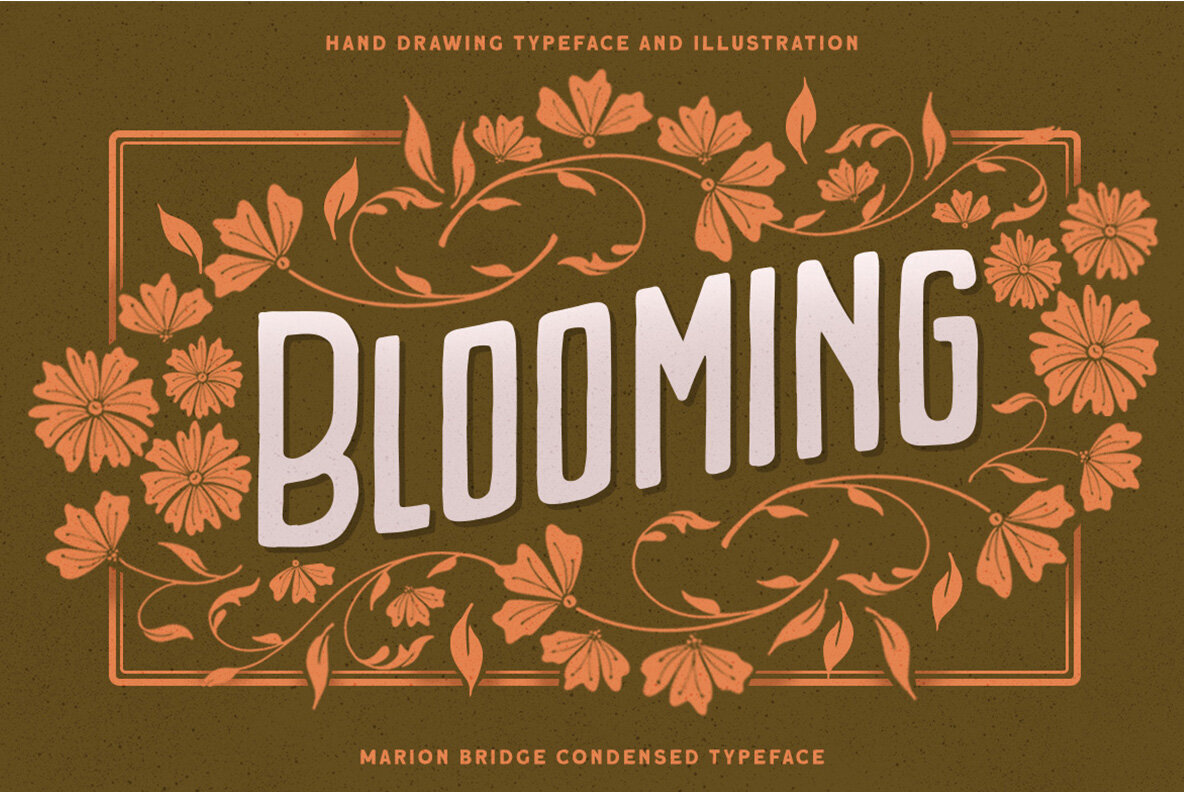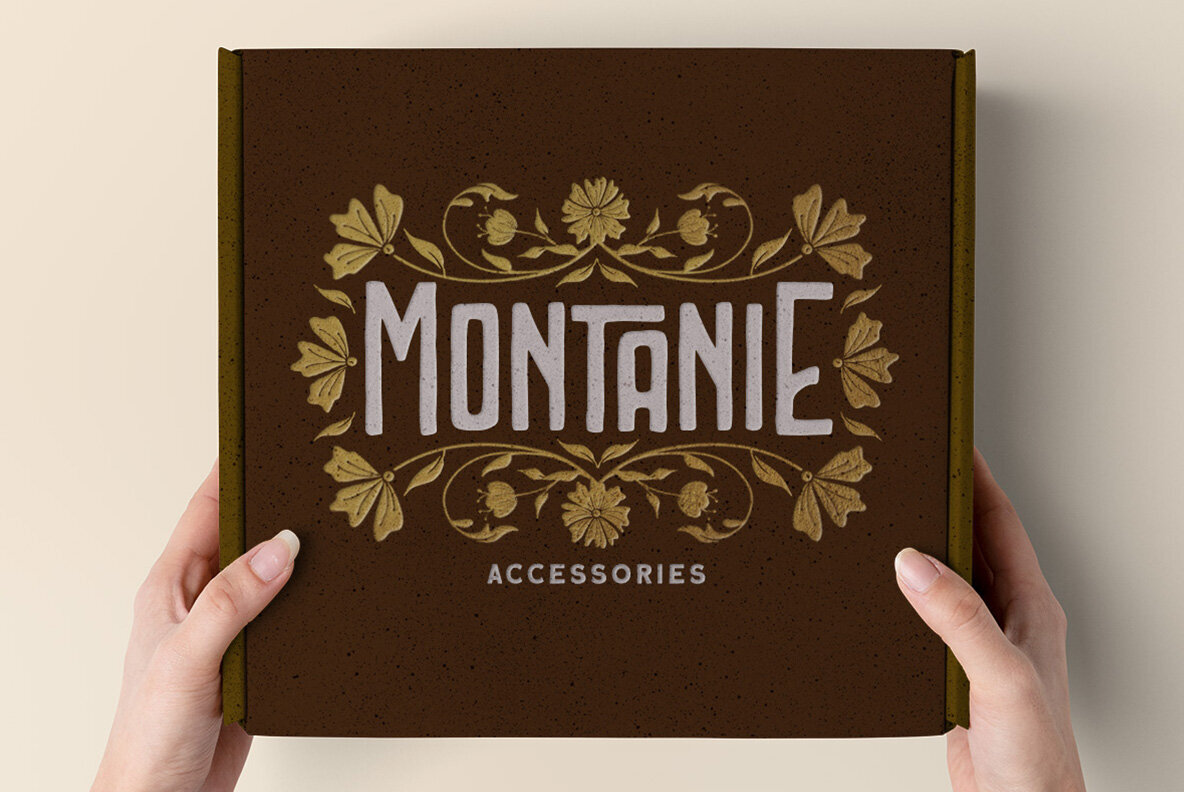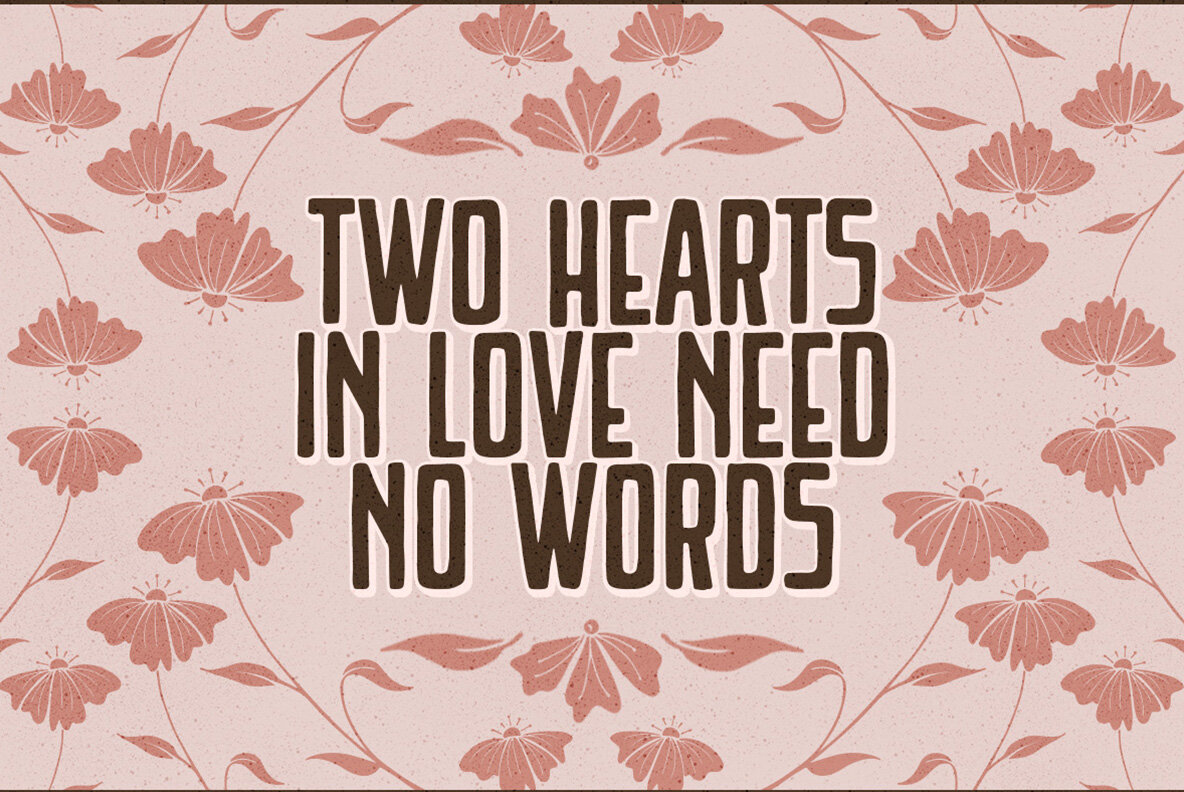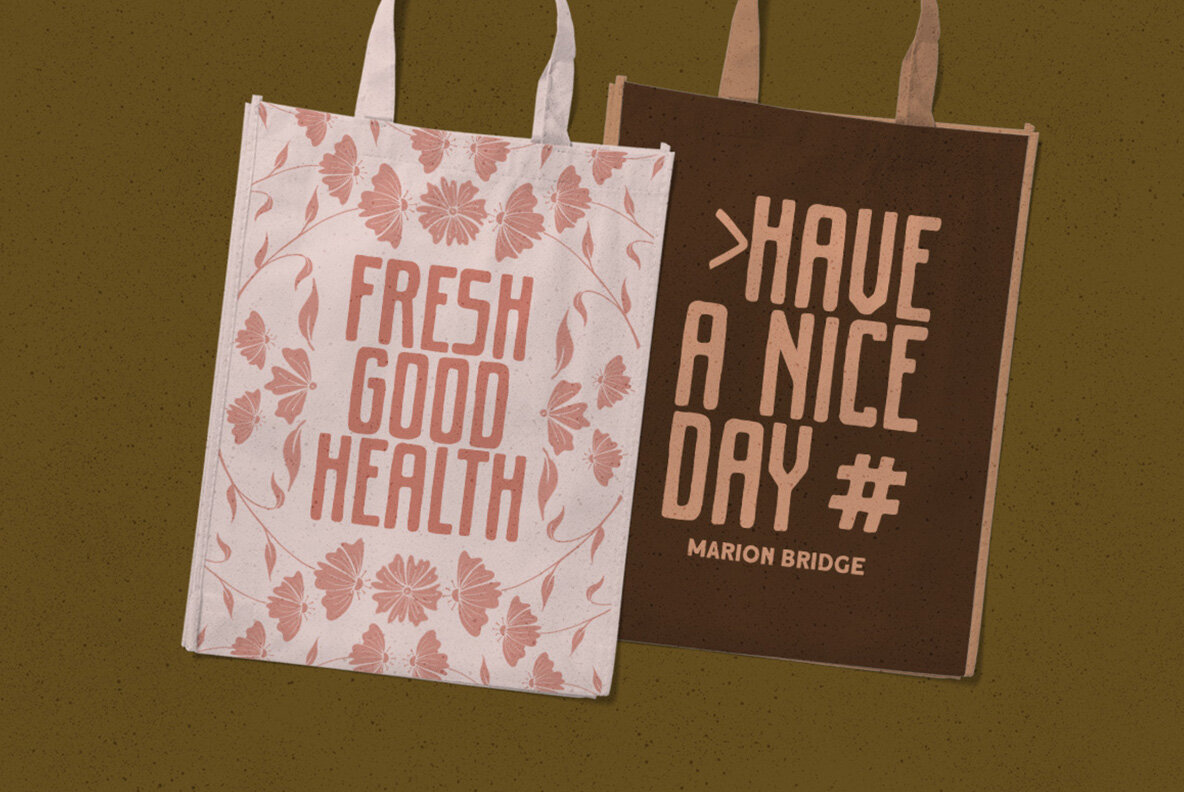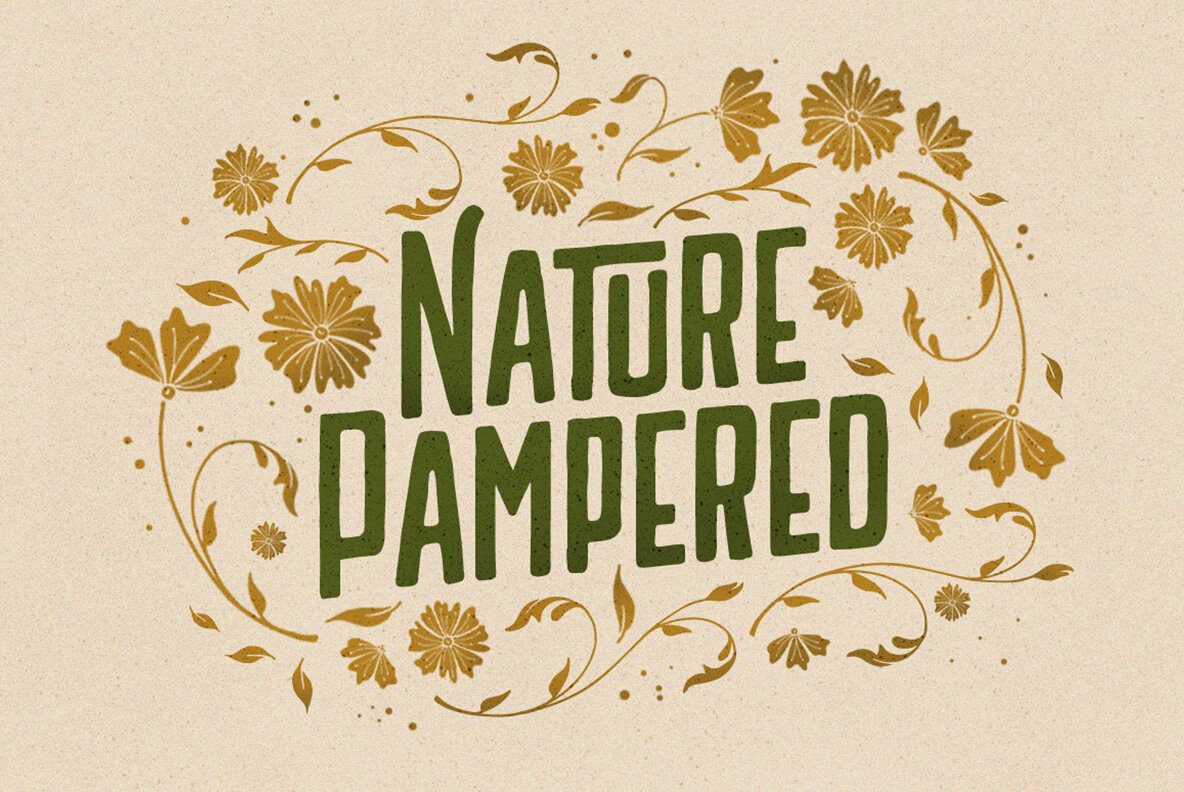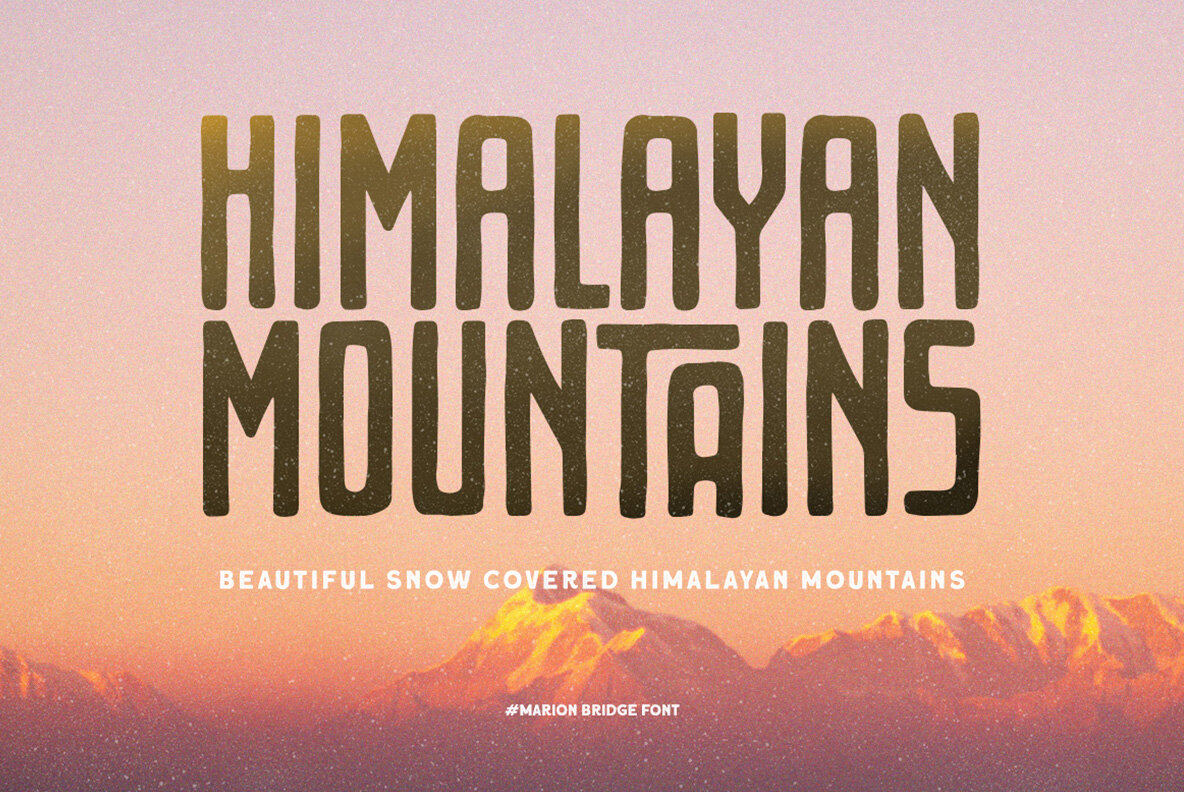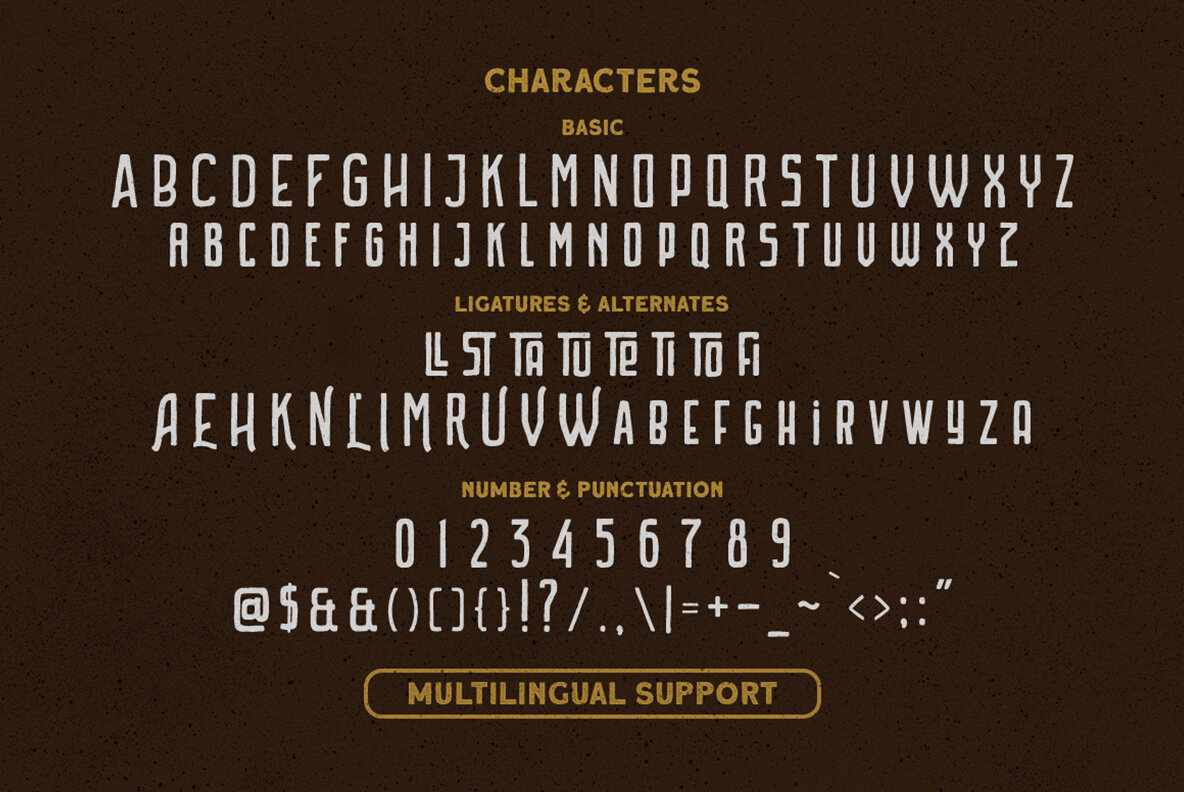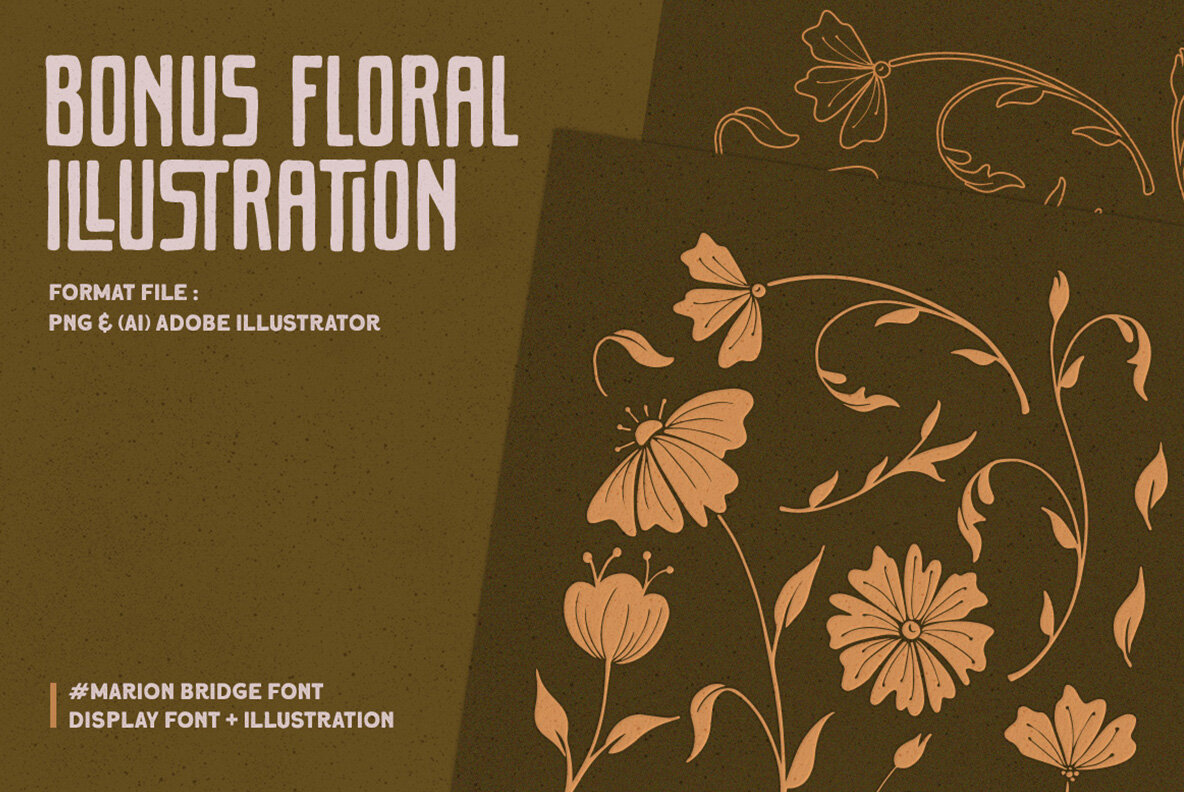
Marion Bridge Font
Marion Bridge is a vintage display typeface with the touch of nostalgic feel. The strong and bold looks make this font standout to be used as a title or a logo. It comes with many illustrations as a bonus! Features: - Bonus Illustration - Numbers and Punctuation - Multilingual - PUA encoded